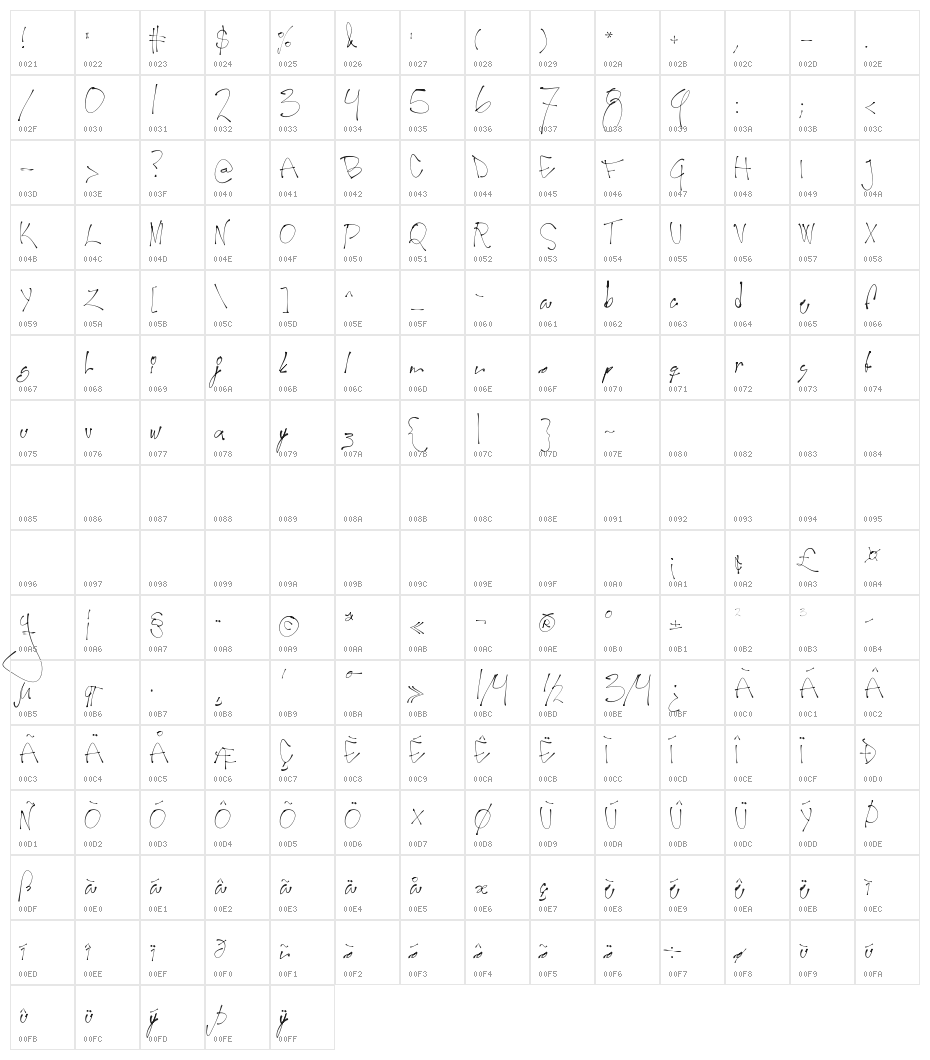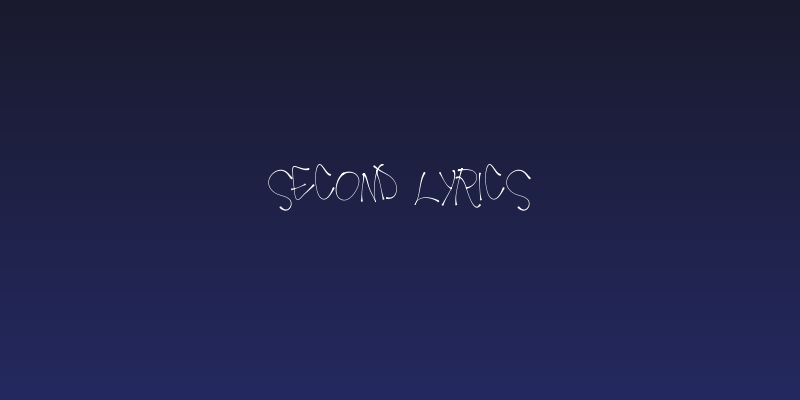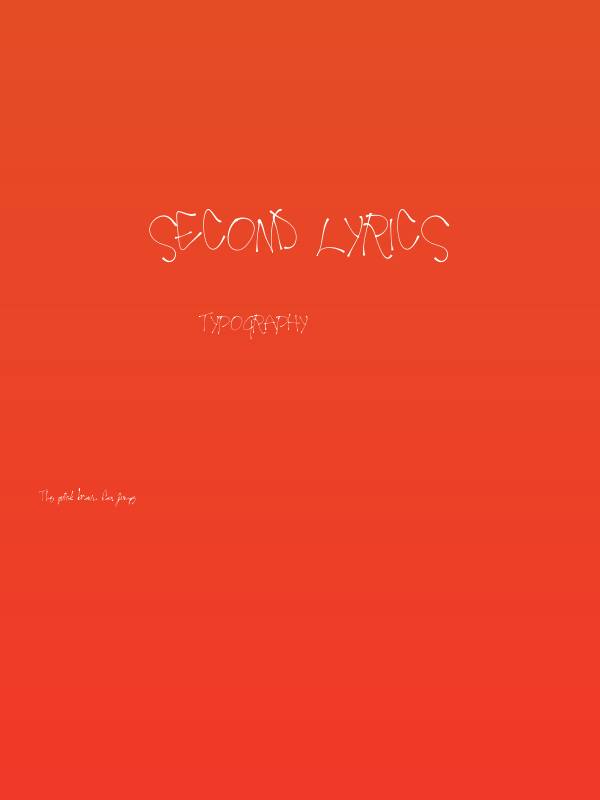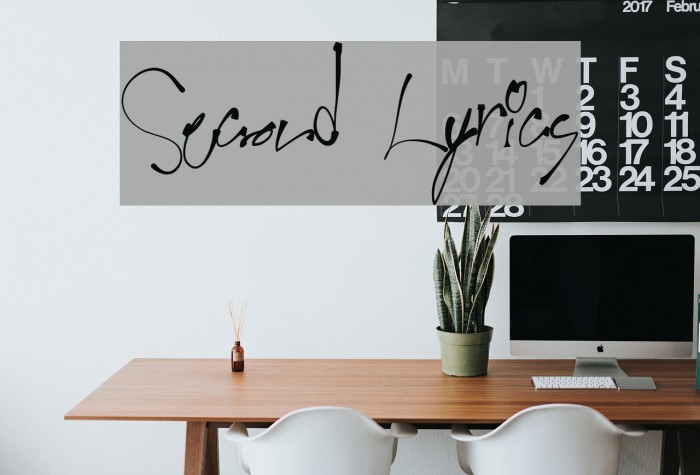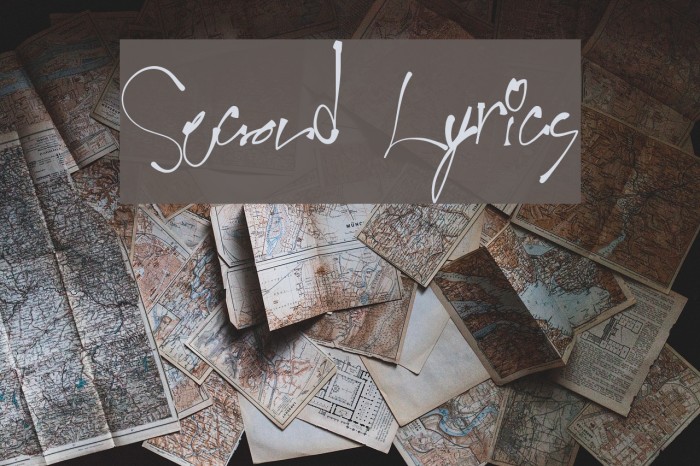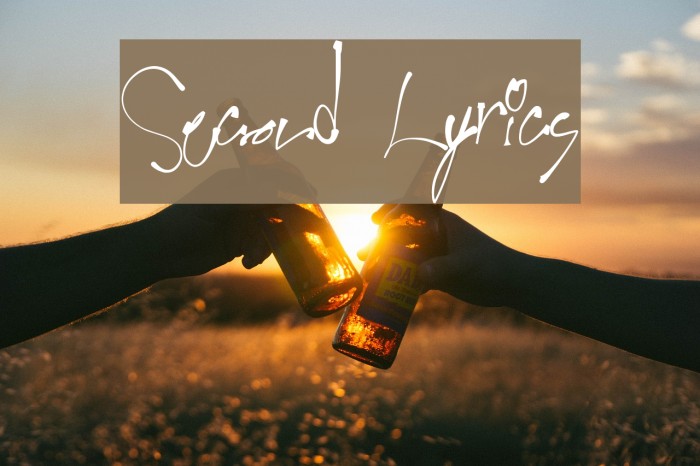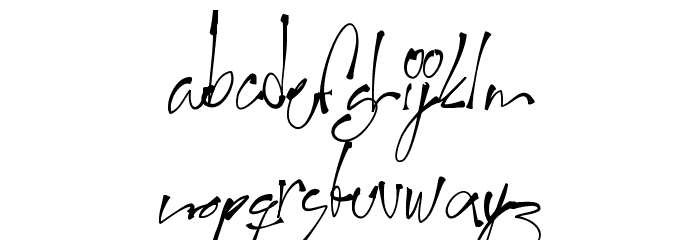
Second Lyrics Font
Second Lyrics Description
This font features a unique, handwritten style with a playful and artistic flair. The letters are characterized by their irregular shapes and varying line thicknesses, giving them a dynamic and spontaneous appearance. The uppercase letters are tall and narrow, while the lowercase letters maintain a consistent flow with a slightly more compact form. Numbers and special characters follow the same whimsical style, adding to the overall cohesive look. The font's informal and creative nature makes it ideal for projects that require a personal touch or an artistic vibe.
| Overall Style | Artistic |
| Proposed Projects | Ideal for greeting cards, artistic posters, personal branding, and creative social media graphics. |